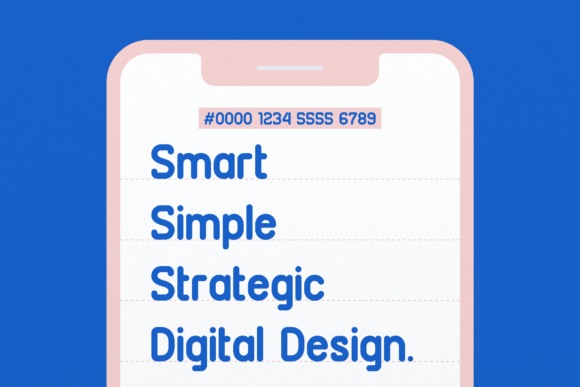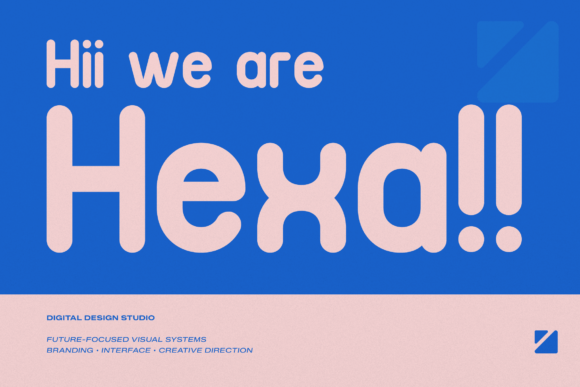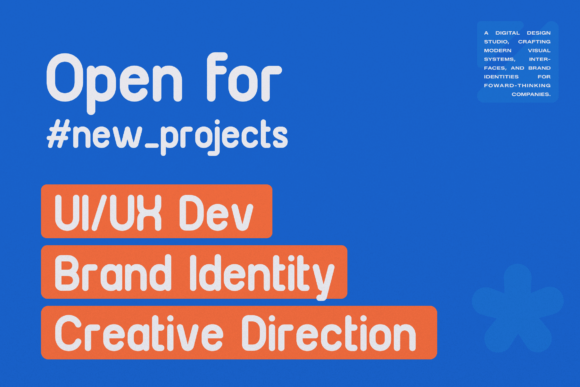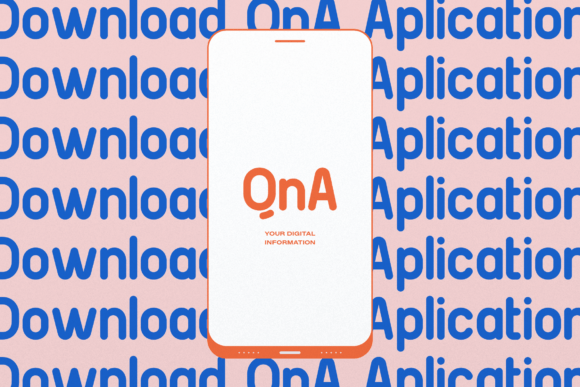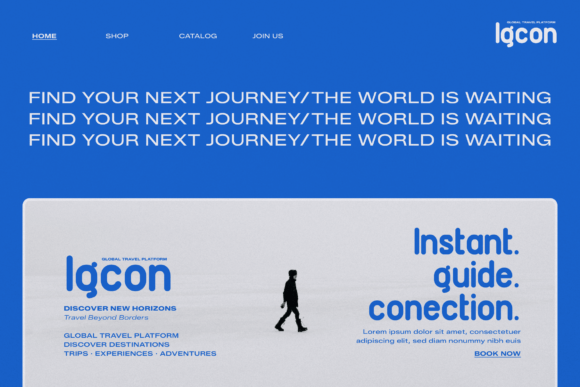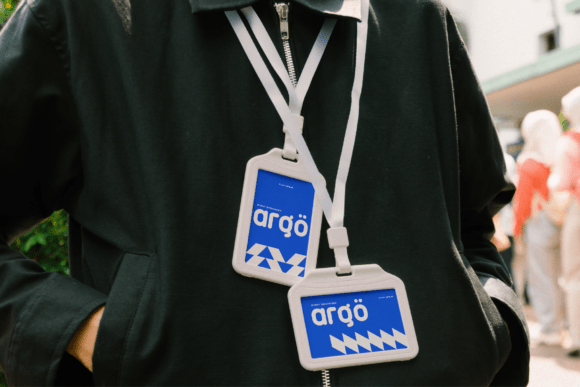
Introduction to Qilargo Font Font
Fonts play a crucial role in design, and the Qilargo Font font is a typeface that brings both character and versatility to any project. Whether you’re working on a branding project, a website, or a print design, the Qilargo Font font offers a unique style that can elevate your work.
Qilargo: A New Display Bold Sans Step into the future of friendly branding with Qilargo, a bold display sans-serif that redefines modern minimalism.
Featuring ultra-thick, rounded strokes and clean geometric silhouettes, Qilargo is designed for maximum legibility with a playful, βsoft-techβ personality The unique treatment of the lowercase βgβ and βqβ gives it a signature look that is perfect for startup logos, app interfaces, high-impact social media headlines, and modern editorial layouts.
The Qilargo Font font is more than just a typeface β it’s a design tool that helps you communicate your message with style and clarity. Its unique character set and versatile design make it suitable for a wide range of applications, from elegant invitations to bold headlines.
With its carefully crafted letterforms and balanced proportions, the Qilargo Font font ensures readability and visual appeal across all mediums.
The Qilargo Font font stands out with its unique design, exceptional readability, and versatility across various design applications.